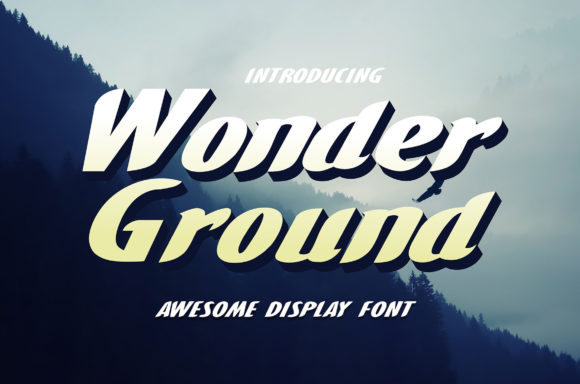
Introducing Wonder Ground, a display font that captivates hearts and empowers creatives. Step into a realm where imagination and expression collide, where ordinary designs transform into visual masterpieces. This meticulously designed font, a creation of Cikareotype, is not just a collection of letters; it's an invitation to elevate your creations to new heights.
Wonder Ground's bold and distinct character dances across your screen, leaving a trail of elegance and charm. Each letter, meticulously crafted with intricate detailing, exudes a sense of modern sophistication. Its clean lines and dynamic curves create a visual symphony that will leave your audience spellbound.
Whether you're crafting captivating logos that demand attention or designing alluring posters that ignite emotions, Wonder Ground is your ultimate companion. It effortlessly adapts to any design concept, becoming an integral part of your creative vision. Unleash the limitless possibilities of Wonder Ground and witness the transformation of your designs into works of art.
With Wonder Ground at your fingertips, you'll embark on a journey of endless possibilities. Elevate your brand identity, captivate your audience, and leave an unforgettable impression. Experience the magic of Wonder Ground today and let your creativity soar.